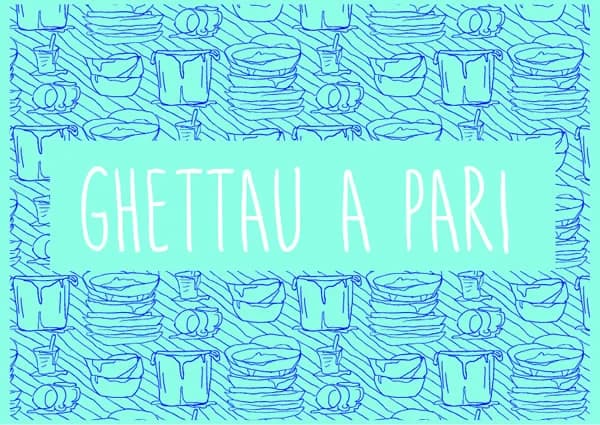
1 / 3About Strollico Font
Strollico by Silvia Porcu is a playful handwritten font that blends informal charm with contemporary sensibility, offering designers a versatile tool for projects demanding personality and warmth. This all-caps typeface maintains the organic character of hand-lettering while embracing clean, minimal design principles that ensure readability and sophistication across applications. The font's relaxed personality makes it perfectly suited for projects where authentic character matters. Designers frequently turn to Strollico for creating custom Etsy product labels that feel genuinely handmade, designing casual event signage for boutique businesses, curating coffee shop menus with personality, or crafting DIY wedding invitation suites that celebrate imperfect beauty. Its sans-serif structure provides reliable legibility while distinctive character shapes deliver memorable visual impact. The all-caps construction encourages confident, graphic-forward design choices, whether you're working on craft packaging for small-batch producers, developing social media graphics for creative brands, or lettering signage for intimate retail spaces. What makes Strollico work across these diverse applications is its balance between character and clarity, enough personality to feel authentic, enough restraint to remain legible. This makes it an intelligent choice for anyone seeking a handwritten font that doesn't sacrifice function for form. Discover Strollico on Creative Fabrica and add this warmly quirky font to your collection.
Strollico Font is a script font that shines as a display or heading face. Pair it with a clean sans-serif or serif font for body text β the contrast creates a clear hierarchy while the two styles stay balanced and easy to read.
Strollico Font
by Silvia Porcu